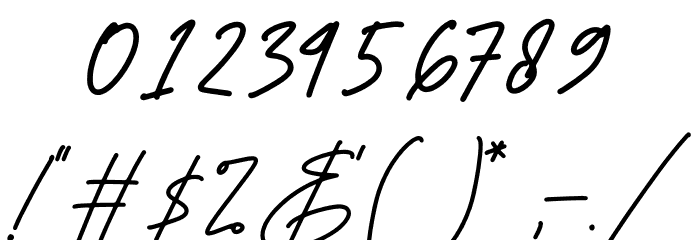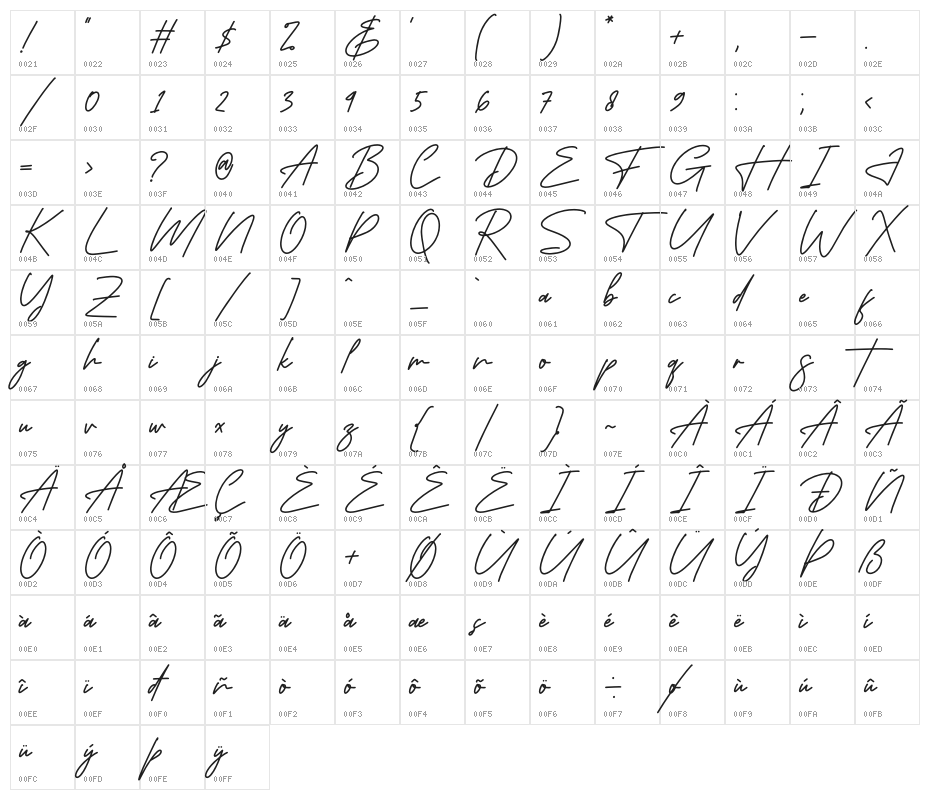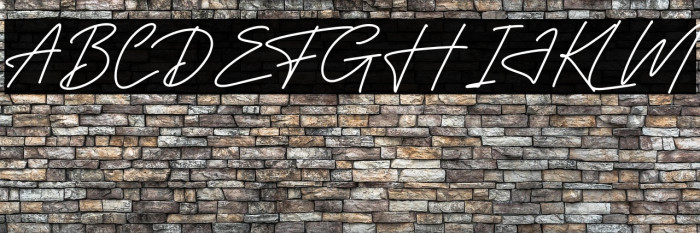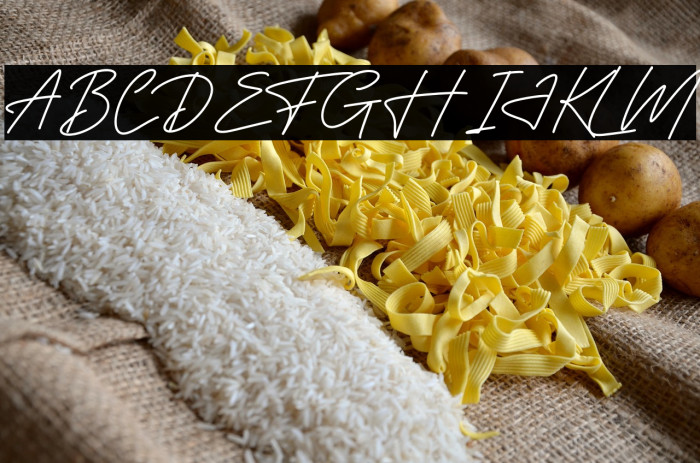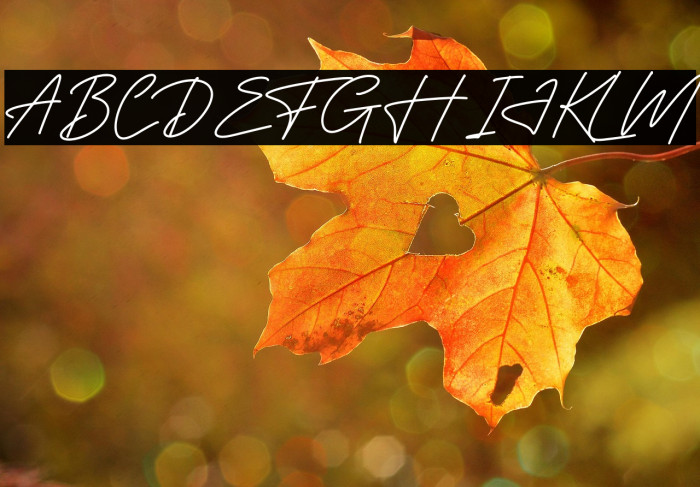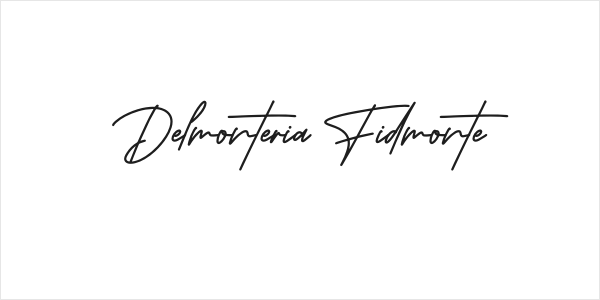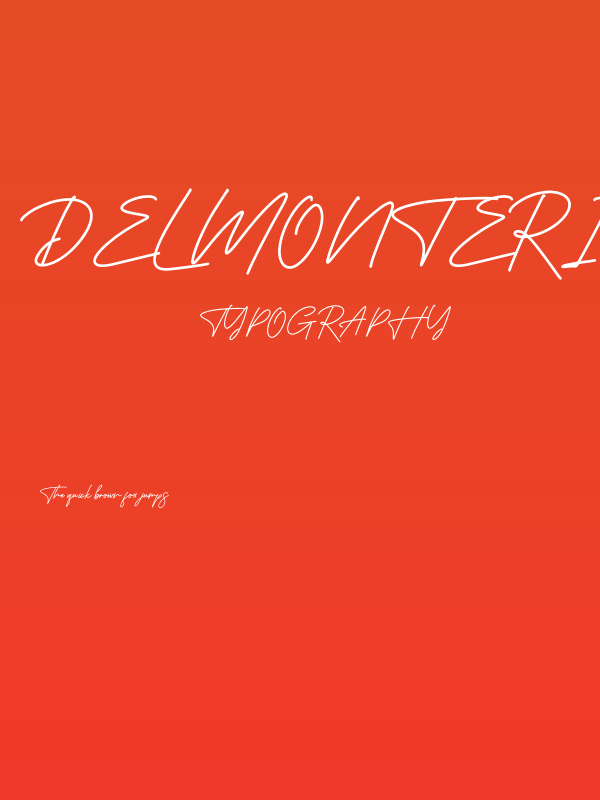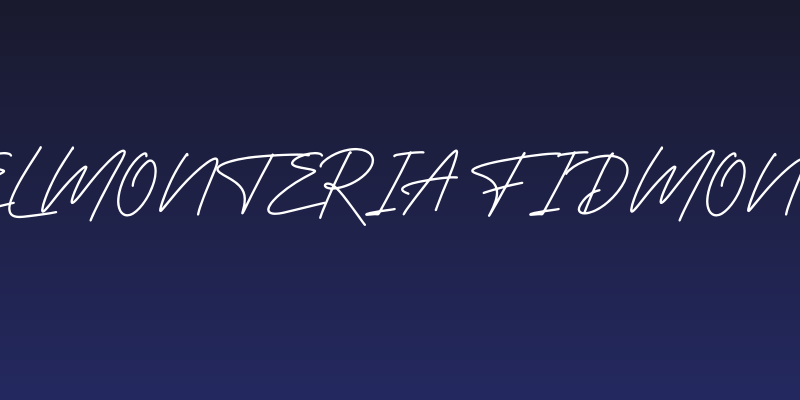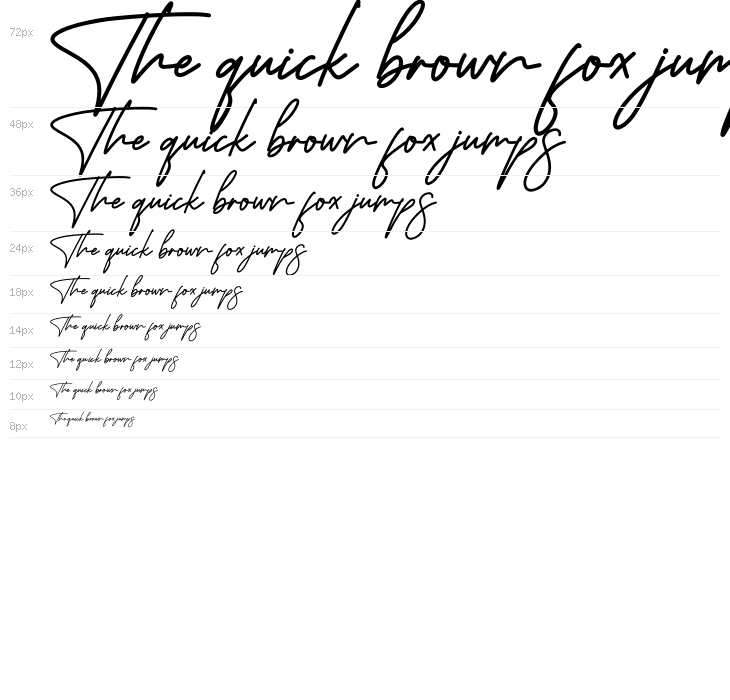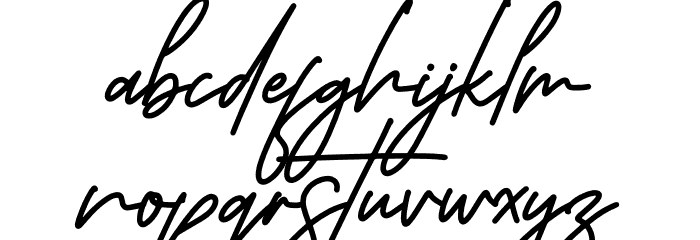
Delmonteria Fidmonte Font
Delmonteria Fidmonte Description
This font features a dynamic and fluid script style, characterized by its elegant and flowing letterforms. The uppercase letters exhibit a graceful, cursive design with smooth curves and a slight slant, giving them a sophisticated appearance. The lowercase letters continue this theme with a more pronounced slant and intricate loops, adding a touch of flair and personality. The numerals are consistent with the script style, maintaining the same fluidity and elegance. Special characters are thoughtfully designed to match the overall aesthetic, ensuring a cohesive look across all text. This font's handwritten quality makes it ideal for projects that require a personal and artistic touch.